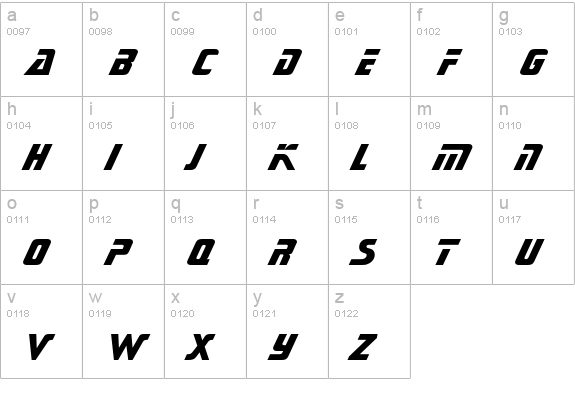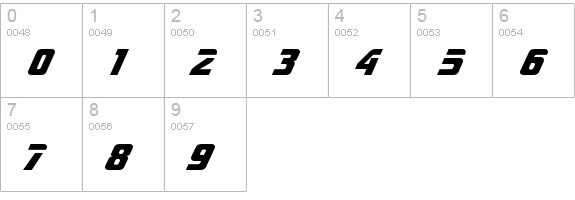
Sonic Extra Bold is a strong, high-contrast variant in the Sonic typeface family \xE2\x80\x94 well suited to headlines, attention-grabbing titles, and strong calls-to-action.
Introducing Sonic Extra Bold, a font that exudes confidence, power, and an unapologetic boldness. This font is perfect for those who want their words to make a lasting impact, as it commands attention and demands to be noticed. With its thick and strong letterforms, Sonic Extra Bold effortlessly captures the essence of strength and determination. Each character is meticulously designed to convey a sense of authority and assertiveness, making it the ideal choice for headlines, posters, branding materials, and any design project that requires a strong visual impact. But what sets Sonic Extra Bold apart from other bold fonts? It's not only its striking appearance, but also the fact that it is freely available for download at FontsMarket.com. Yes, you read it right – this font is completely free! You can now bring your designs to life without having to worry about breaking the bank. Whether you're a professional designer looking to add an extra punch to your creations or an aspiring creative who wants to experiment with typography, Sonic Extra Bold is here to empower and inspire you. Its versatility allows it to be used across various design applications, making it a valuable asset to any font library. So why wait? Download Sonic Extra Bold today and unleash its potent energy into your designs. Embrace the freedom to create with a font that not only speaks volumes but also won't cost you a dime. Head over to FontsMarket.com now and let Sonic Extra Bold become your go-to choice for all things bold and impactful.